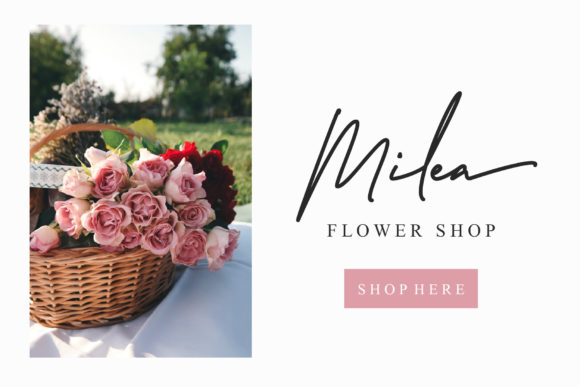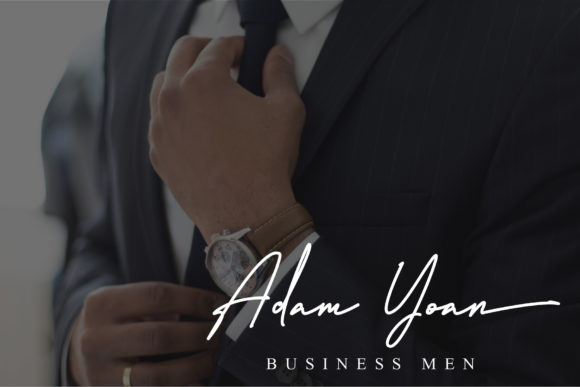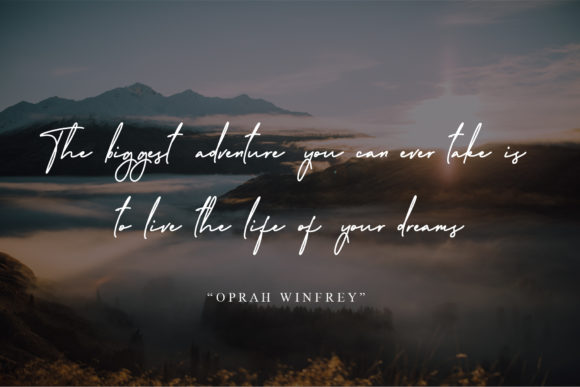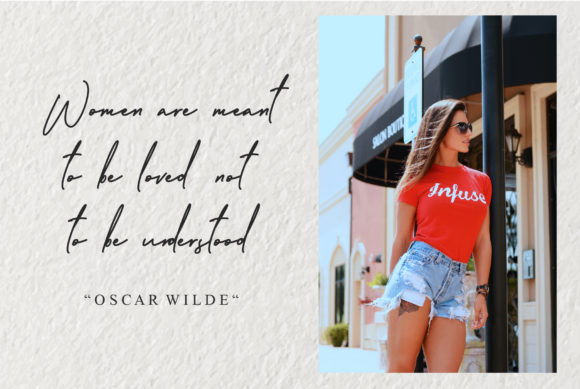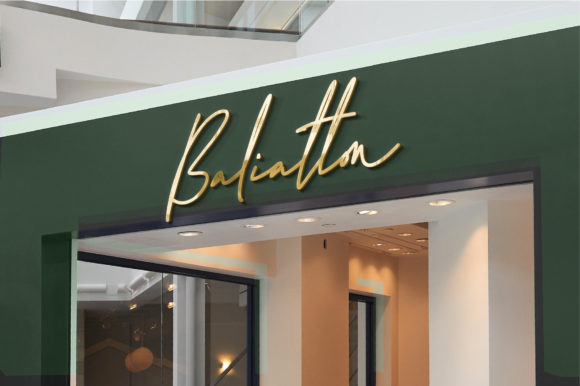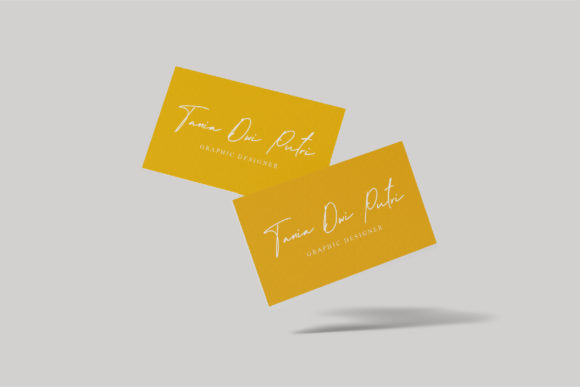
Guten Font: Elevate Your Designs with Elegance and Sophistication
In the world of typography, a font can make or break a design. It’s the perfect blend of style, elegance, and personality that can elevate a project from ordinary to extraordinary. If you’re a designer, crafter, or simply someone who appreciates beautiful typography, you’re in for a treat. Introducing Guten Font, an exquisite handwritten font that’s sure to capture your heart and become a true favorite.
The Perfect Blend of Classy and Contemporary
Guten Font is a masterfully designed handwritten font that strikes the perfect balance between classy calligraphic influences and a contemporary feel. Its elegant strokes, precise lettering, and flowing connections make it a joy to use in a variety of design projects. Whether you’re working on a logo, branding materials, invitations, or packaging, Guten Font is sure to add a touch of sophistication and refinement.
What Makes Guten Font Stand Out?
So, what sets Guten Font apart from other fonts out there? Here are a few reasons why it’s a cut above the rest:
- Unique Character: Guten Font boasts a distinct personality that shines through in its elegant lettering and flowing strokes. Its uniqueness makes it perfect for designers looking to create something truly special.
- Versatility: This font is incredibly versatile, making it suitable for a wide range of design projects, from wedding invitations and branding materials to packaging and digital media.
- Legibility: Despite its elegant and cursive nature, Guten Font remains highly legible, ensuring that your message is conveyed clearly and effectively.
- Contemporary Feel: While Guten Font maintains a classy, calligraphic influence, it also feels fresh and contemporary, making it perfect for modern designs.
How to Use Guten Font in Your Designs
Using Guten Font in your designs is incredibly easy. Here are a few tips to get you started:
- Pair it with Neutrals: Let Guten Font be the star of the show by pairing it with neutral backgrounds and simple design elements.
- Mix and Match: Experiment with different font combinations to create a unique look that showcases Guten Font’s elegance.
- Play with Colors: Guten Font looks stunning in a variety of colors, from rich jewel tones to soft pastels.
- Add Decorations: Consider adding decorative elements, such as flourishes or illustrations, to enhance the overall design.
Why Designers and Crafters Love Guten Font
Guten Font has quickly become a favorite among designers and crafters, and it’s easy to see why. Here are a few reasons why:
- Time-Saving: With Guten Font, you can create stunning designs in a fraction of the time it would take to hand-letter or create a custom font.
- Consistency: Guten Font ensures consistency across your designs, making it perfect for branding and marketing materials.
- Flexibility: This font can be used in a variety of design applications, from print to digital media.
In conclusion, Guten Font is an exquisite handwritten font that’s sure to elevate your designs to new heights. Its perfect blend of classy calligraphic influences and contemporary feel makes it a versatile and elegant choice for a wide range of design projects. Whether you’re a designer, crafter, or simply someone who appreciates beautiful typography, Guten Font is a must-have in your font collection. So why wait? Fall in love with Guten Font and bring your projects to the highest levels!